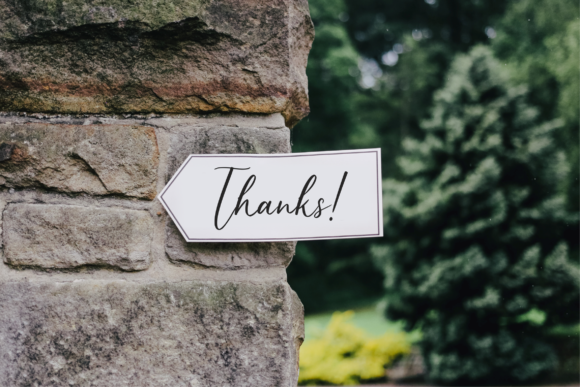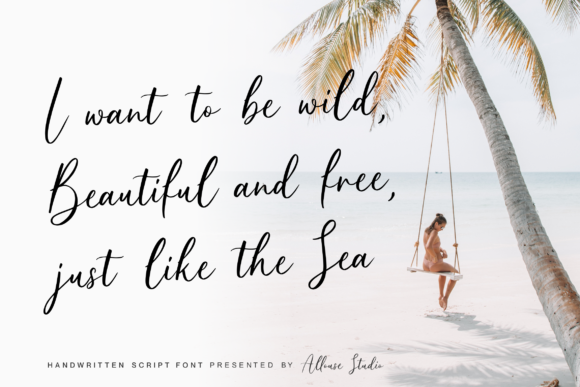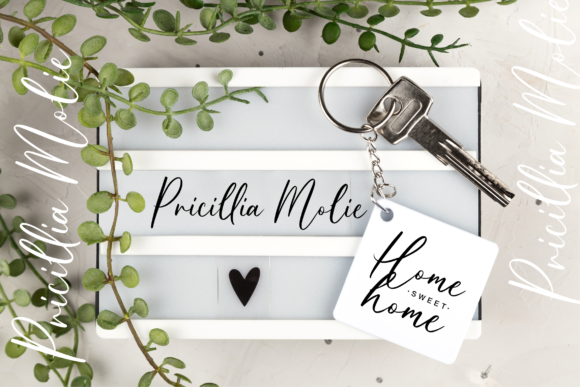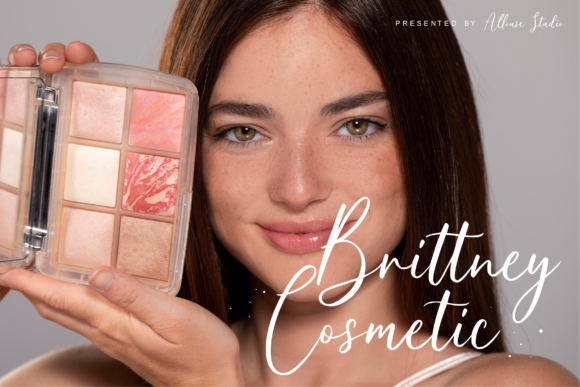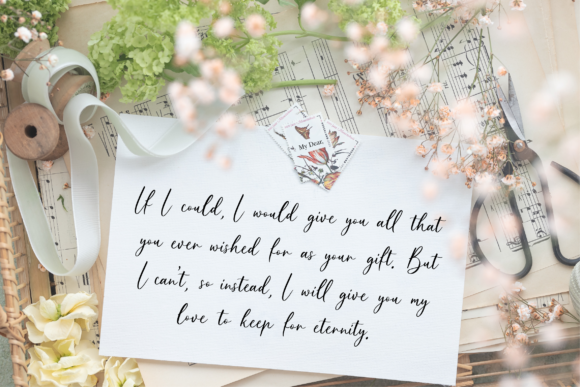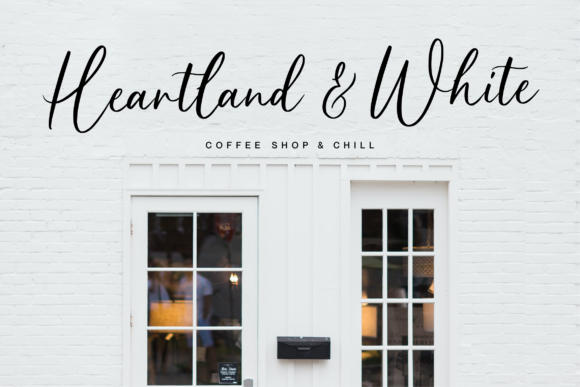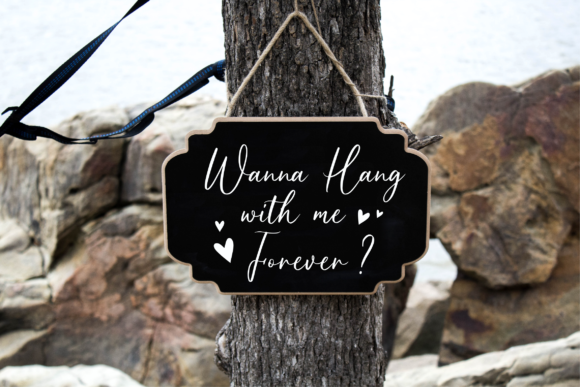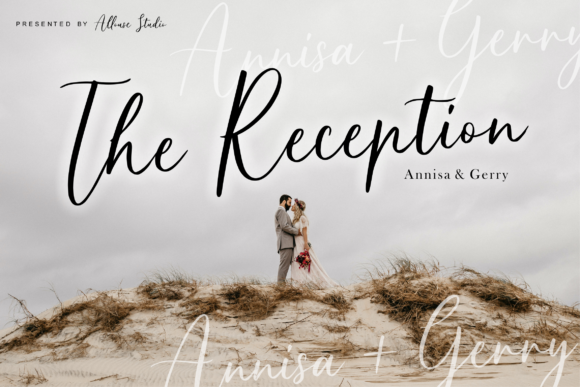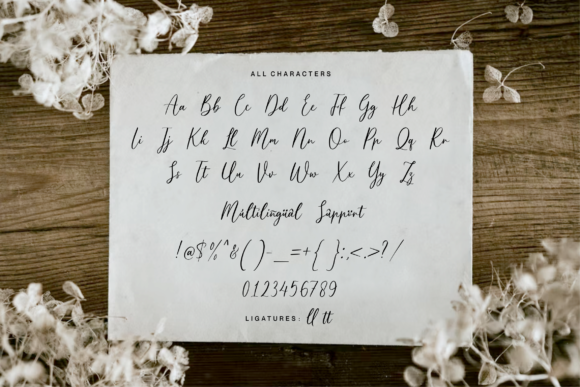
Queensouthy Font
Introducing “Queensouthy,” a captivating and elegant handwritten font that exudes a sense of luxury and sophistication. With its unique feel and stunning impact, Queensouthy adds a touch of opulence to any design project, elevating it to new heights of beauty and refinement.
This font’s light and delicate strokes create a sense of airiness and grace, making it perfect for a wide range of design applications. Whether you’re crafting wedding invitations, branding materials, packaging, or social media graphics, Queensouthy brings a touch of luxury and exclusivity to every project.
With PUA encoding, accessing the wide array of glyphs and ligatures is effortless, allowing you to customize your designs with ease. Whether you’re adding decorative flourishes, stylish swashes, or intricate letter combinations, Queensouthy offers endless possibilities for creative expression.
Experience the beauty and impact of Queensouthy and watch as it transforms your designs into works of art. Whether you’re a professional designer or a creative enthusiast, this font invites you to explore new avenues of creativity and express yourself with confidence and style.
Unlock the full potential of your designs with Queensouthy and let its elegant and luxurious charm leave a lasting impression on your audience. With its unique feel and stunning impact, this font is sure to become a cherished addition to your design toolkit, inspiring admiration and awe wherever it goes.